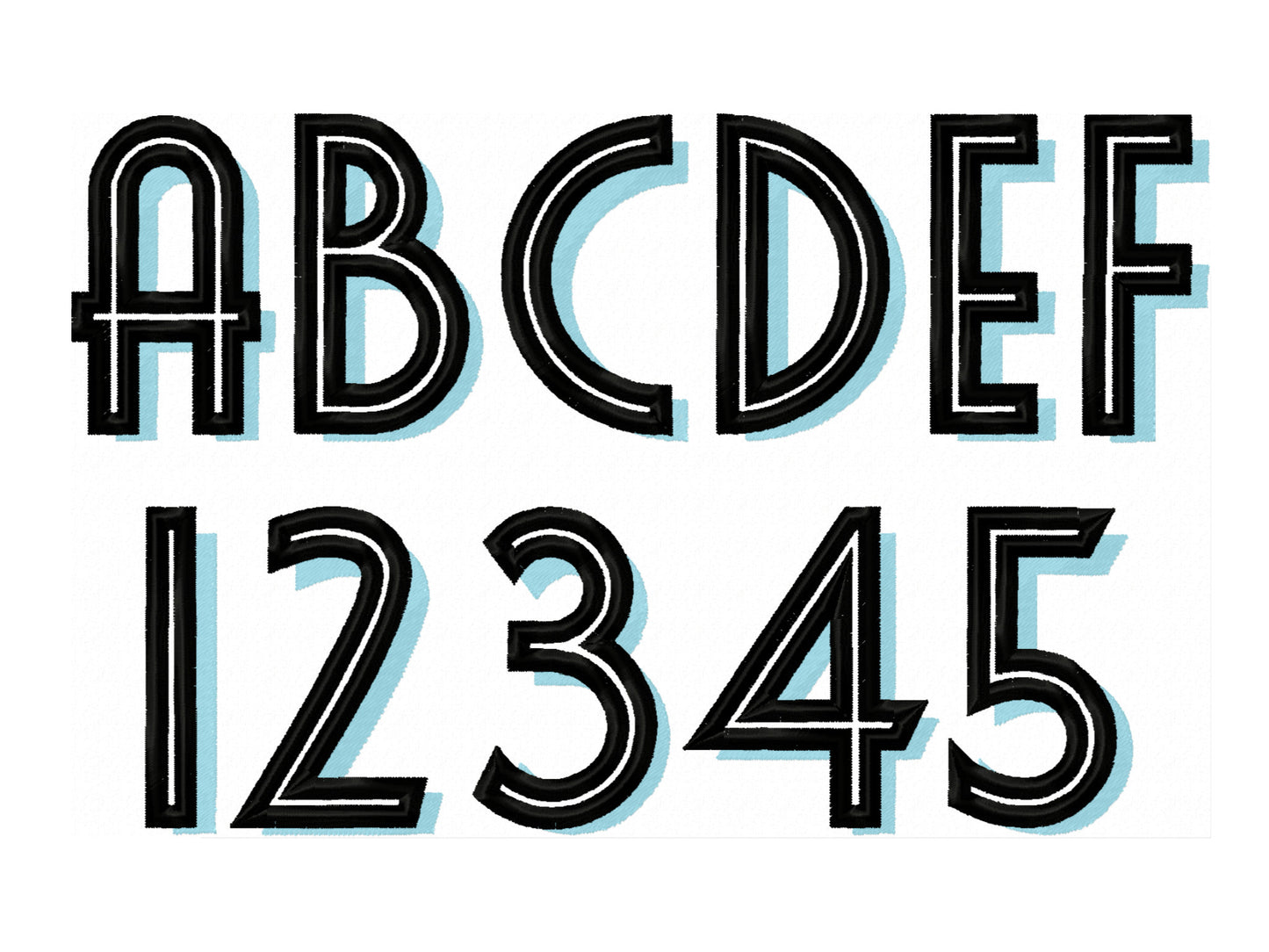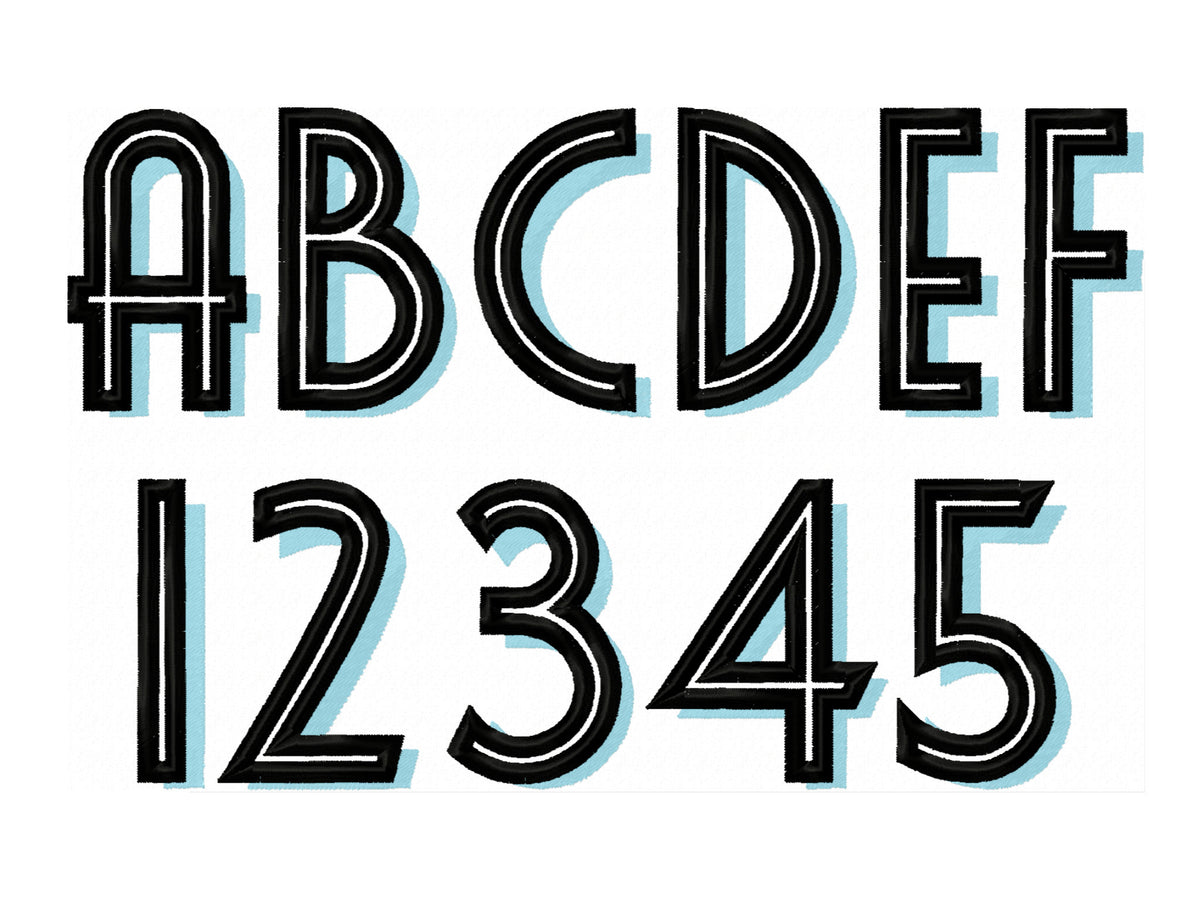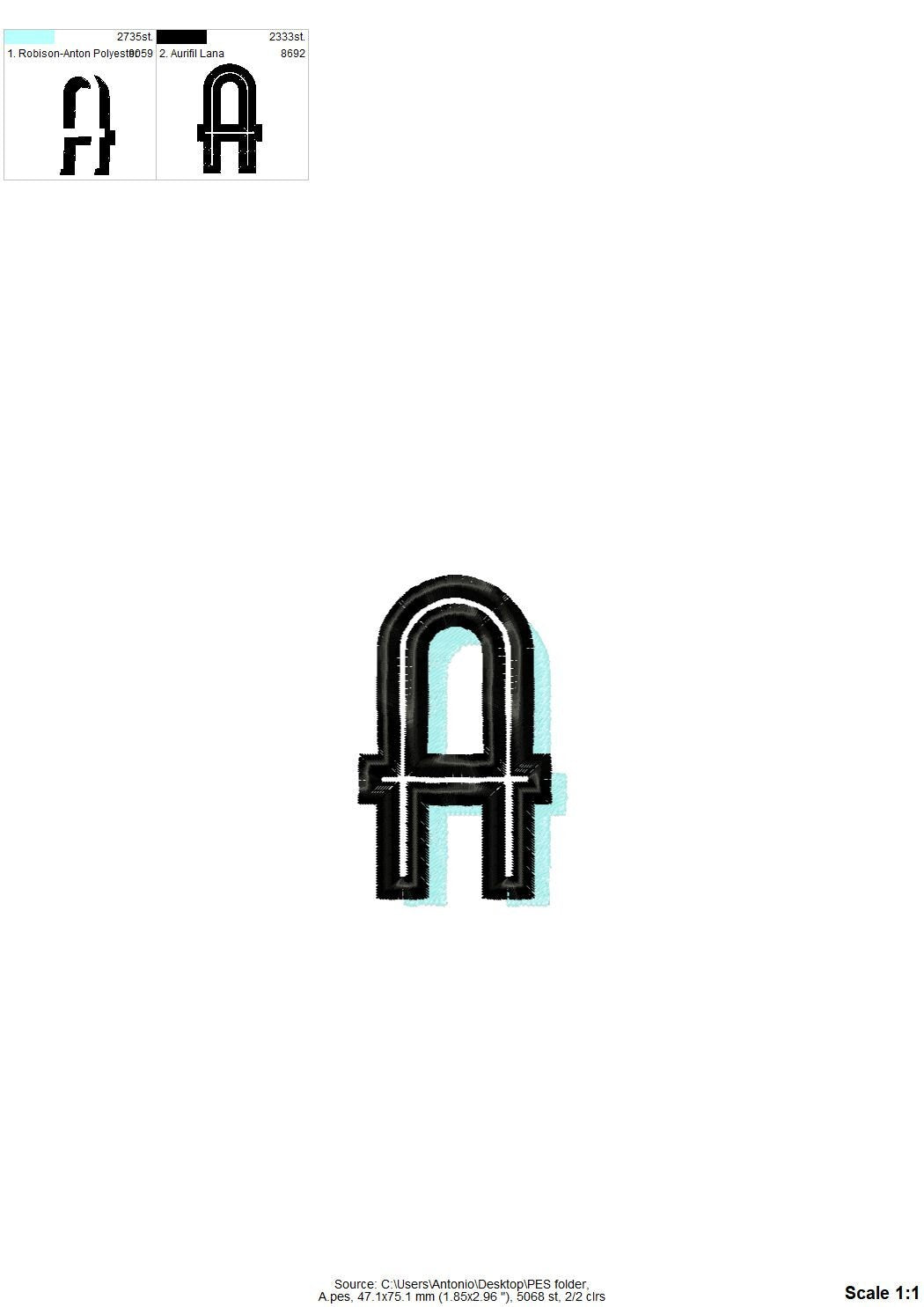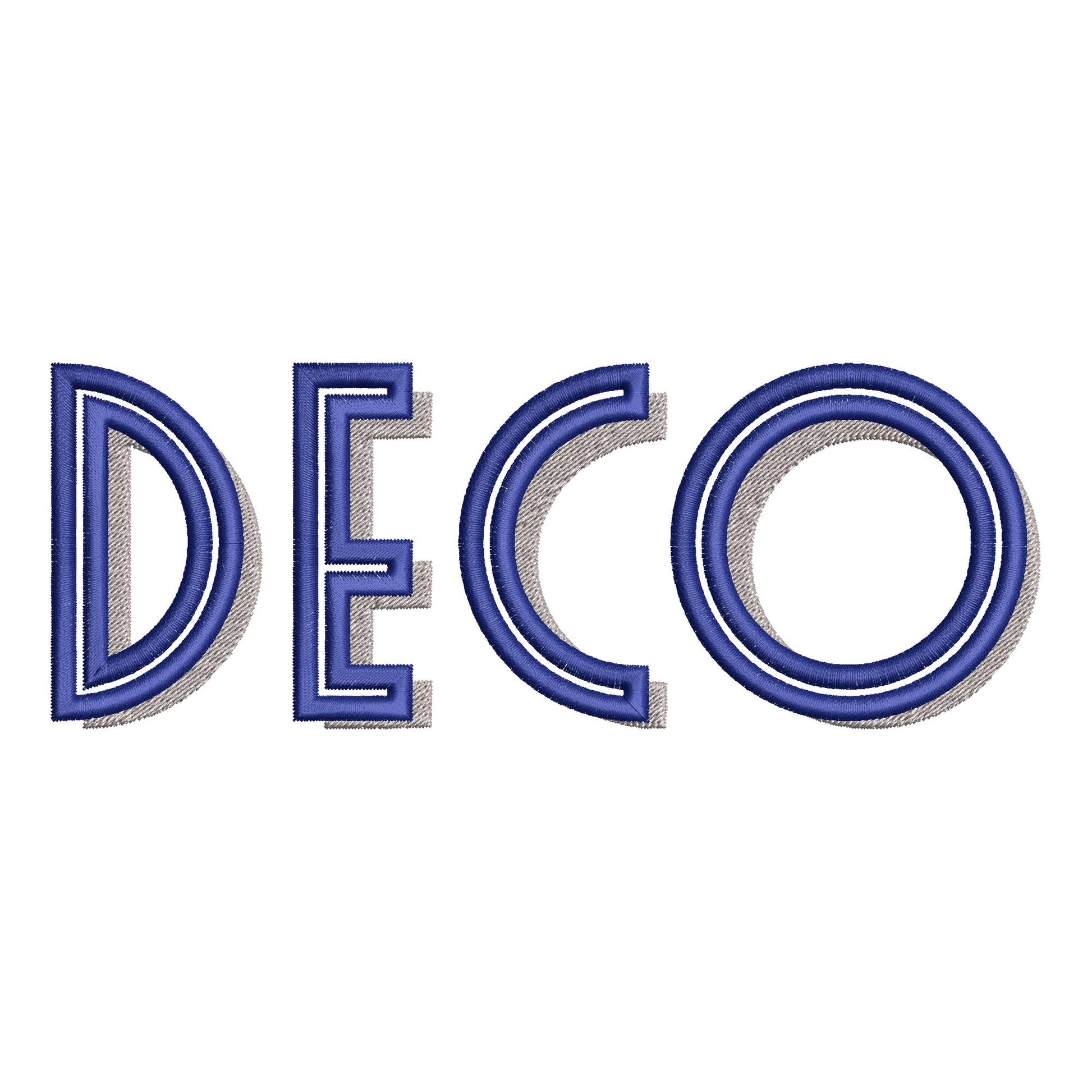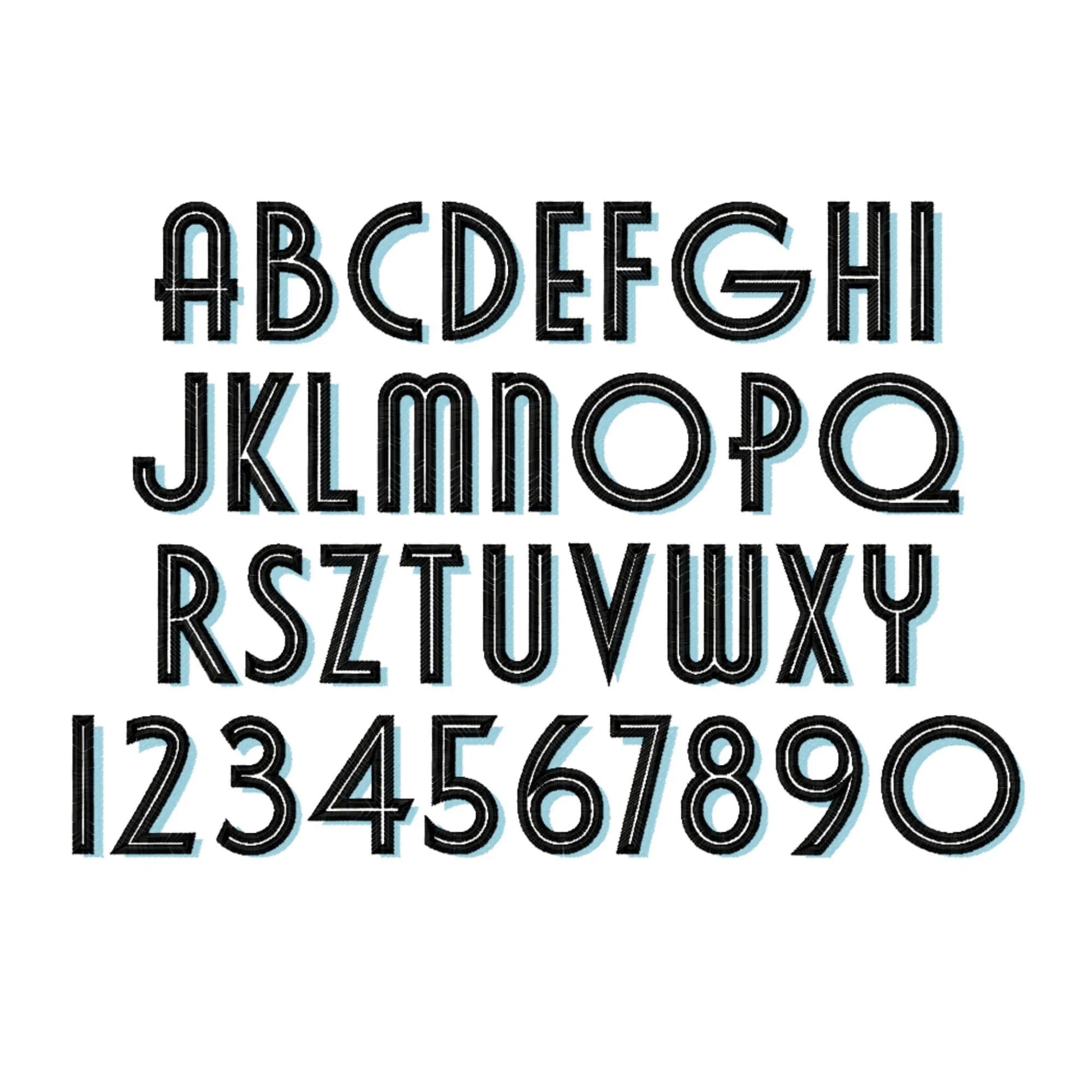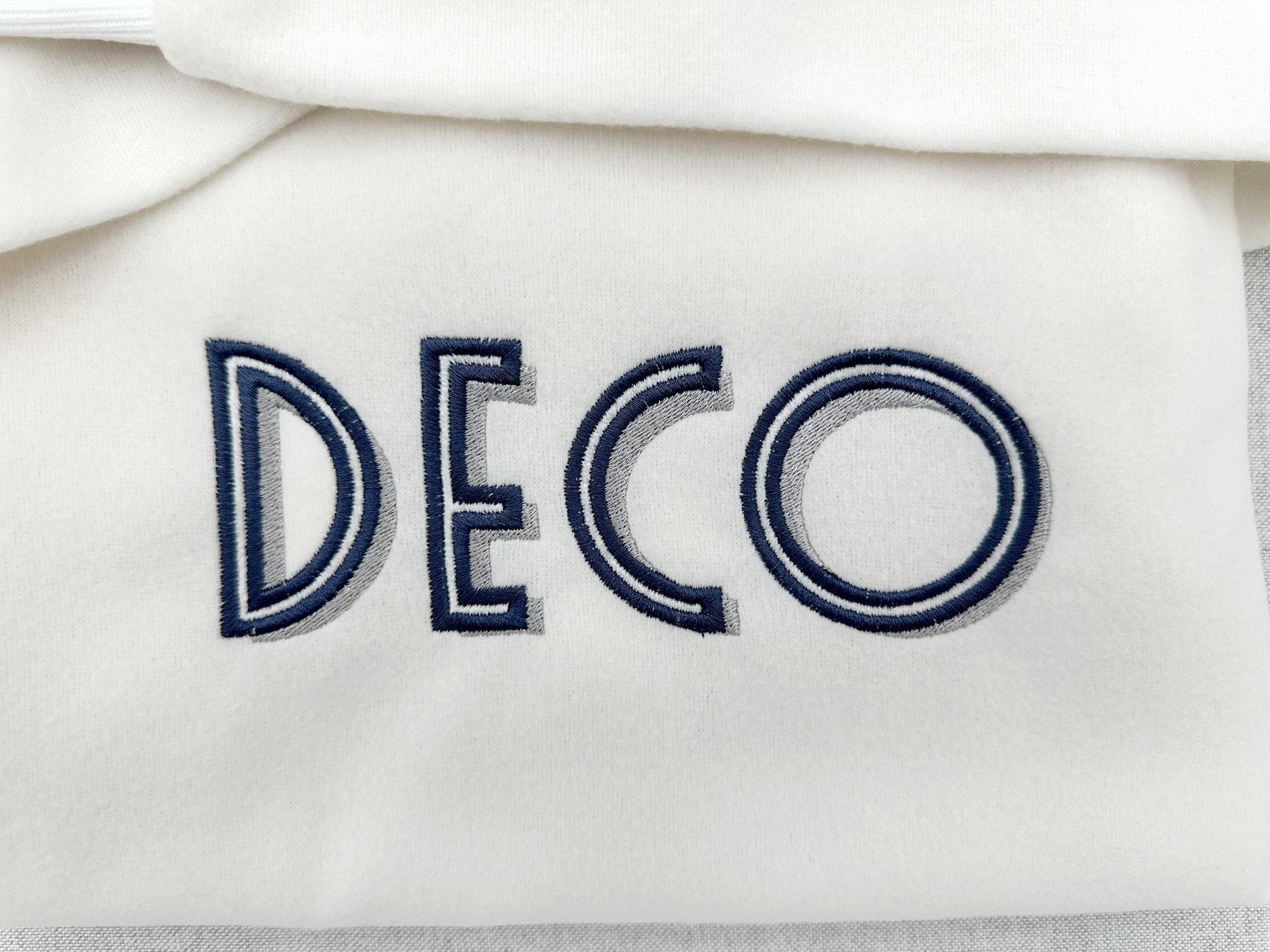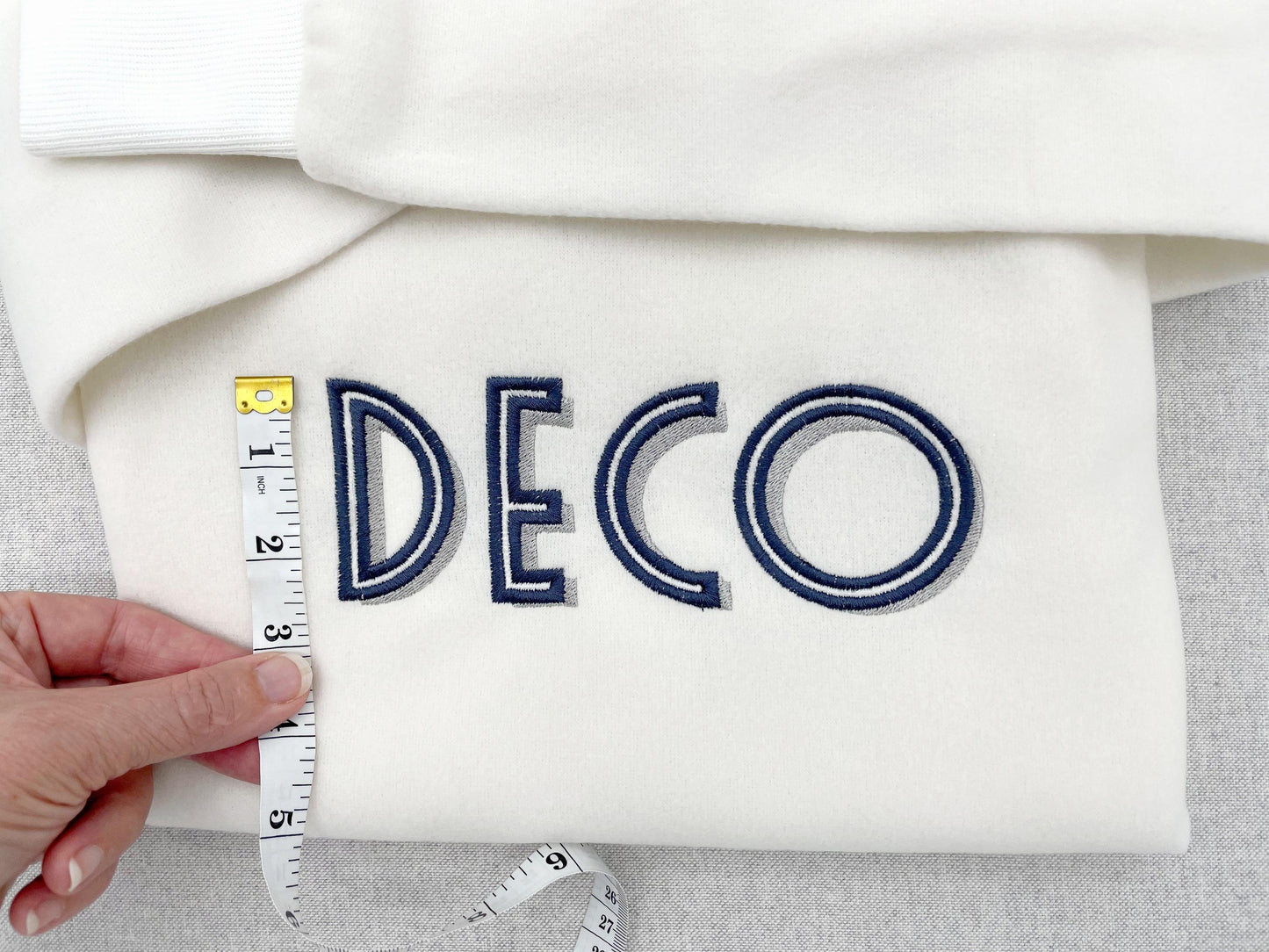
Shadow Font Art Deco
Or click to open the linkA retro Art Deco font with a shadow, in satin and fill stitch. Stylish for monograms, names and vintage-look gifts.
The letters come in six sizes: 1.8, 2.2, 2.6, 3, 3.5 and 4 inches. Art Deco capitals in satin and fill stitch with a shadow. Includes uppercase letters A to Z and numbers 0 to 9.
- Art Deco shadow font, satin and fill stitch
- Uppercase A to Z, numbers 0 to 9